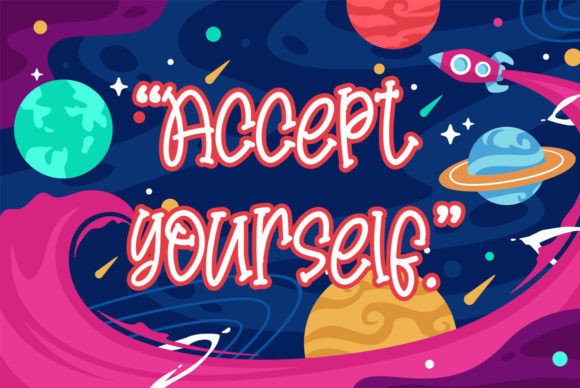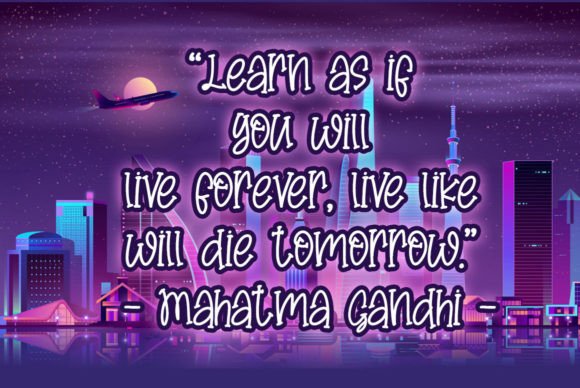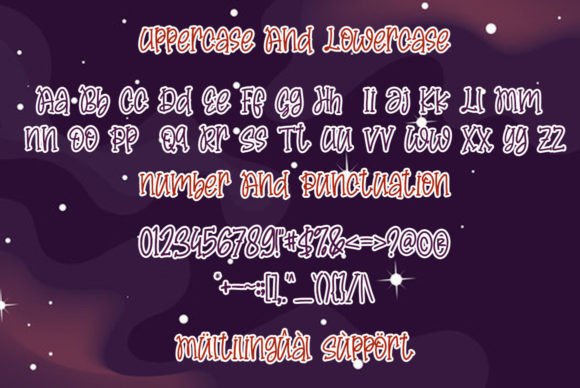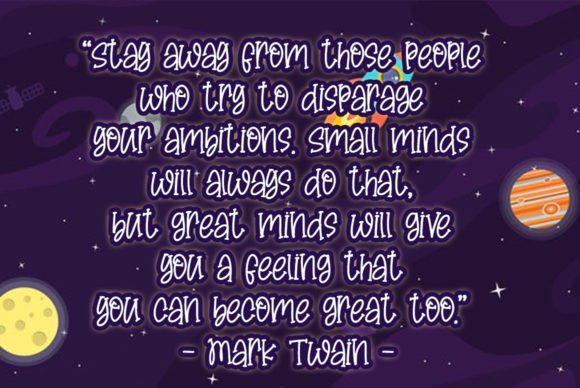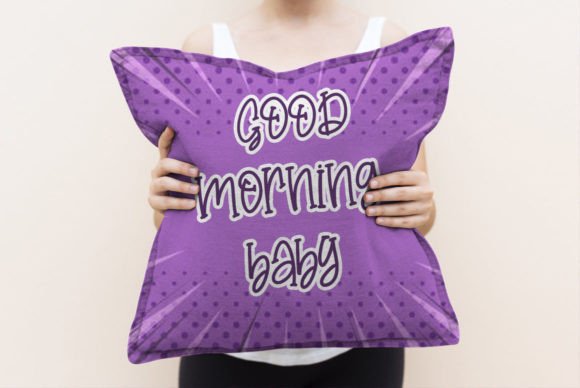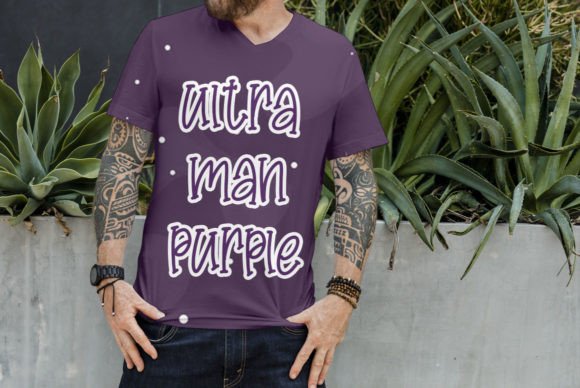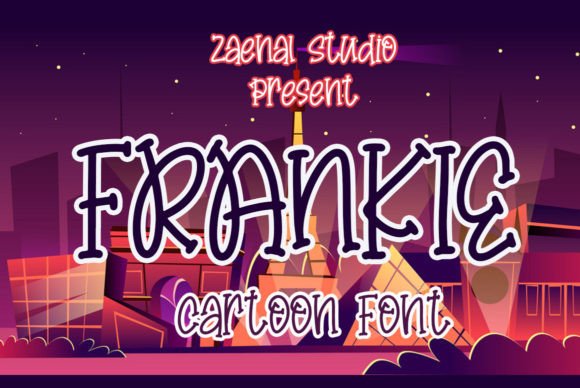
Introducing Frankie Font: The Ultimate Cartoon Font for Unique Brand and Logo Designs
Are you a designer or crafter looking for a font that can add a touch of elegance and uniqueness to your brand and logo designs? Look no further than Frankie Font, a cartoon font that is both funny and sophisticated. In this article, we’ll explore the features and benefits of Frankie Font, and why it’s perfect for cartoon, vintage logo, branding, and logo design projects.
What is Frankie Font?
Frankie Font is a carefully crafted cartoon font that is designed to bring a smile to your face. Its unique and funny design makes it perfect for creating eye-catching logos, brand identities, and marketing materials that stand out from the crowd. But what sets Frankie Font apart is its elegance and sophistication, making it suitable for a wide range of design projects, from playful cartoons to high-end branding and logo designs.
Key Features of Frankie Font
- Unique and Funny Design: Frankie Font has a one-of-a-kind design that is sure to grab attention and leave a lasting impression.
- Elegant and Sophisticated: Despite its playful nature, Frankie Font exudes elegance and sophistication, making it perfect for high-end branding and logo designs.
- Cartoon-Style: Frankie Font has a distinct cartoon style that is perfect for creating playful and engaging designs.
- Vintage Logo Inspiration: Frankie Font draws inspiration from vintage logos, making it a great choice for designers looking to create retro-style logos.
Why Choose Frankie Font for Your Design Projects?
So, why should you choose Frankie Font for your design projects? Here are just a few reasons:
- Stand Out from the Crowd: With Frankie Font, you can create designs that stand out from the crowd and grab attention.
- Perfect for Cartoon and Vintage Logo Designs: Frankie Font is specifically designed for cartoon and vintage logo designs, making it a great choice for designers who specialize in these areas.
- Elegant and Unique: Frankie Font offers a unique and elegant design that can add a touch of sophistication to your designs.
- Great for Branding and Logo Design: Frankie Font is perfect for creating brand identities and logos that are both memorable and engaging.
How to Use Frankie Font in Your Design Projects
- Pair with Other Fonts: Frankie Font can be paired with other fonts to create a unique and engaging design.
- Experiment with Colors: Frankie Font looks great in a variety of colors, so don’t be afraid to experiment and find the perfect color scheme for your design.
Key Benefits of Frankie Font
- Unique and Funny Design
- Elegant and Sophisticated
- Perfect for Cartoon and Vintage Logo Designs
- Great for Branding and Logo Design